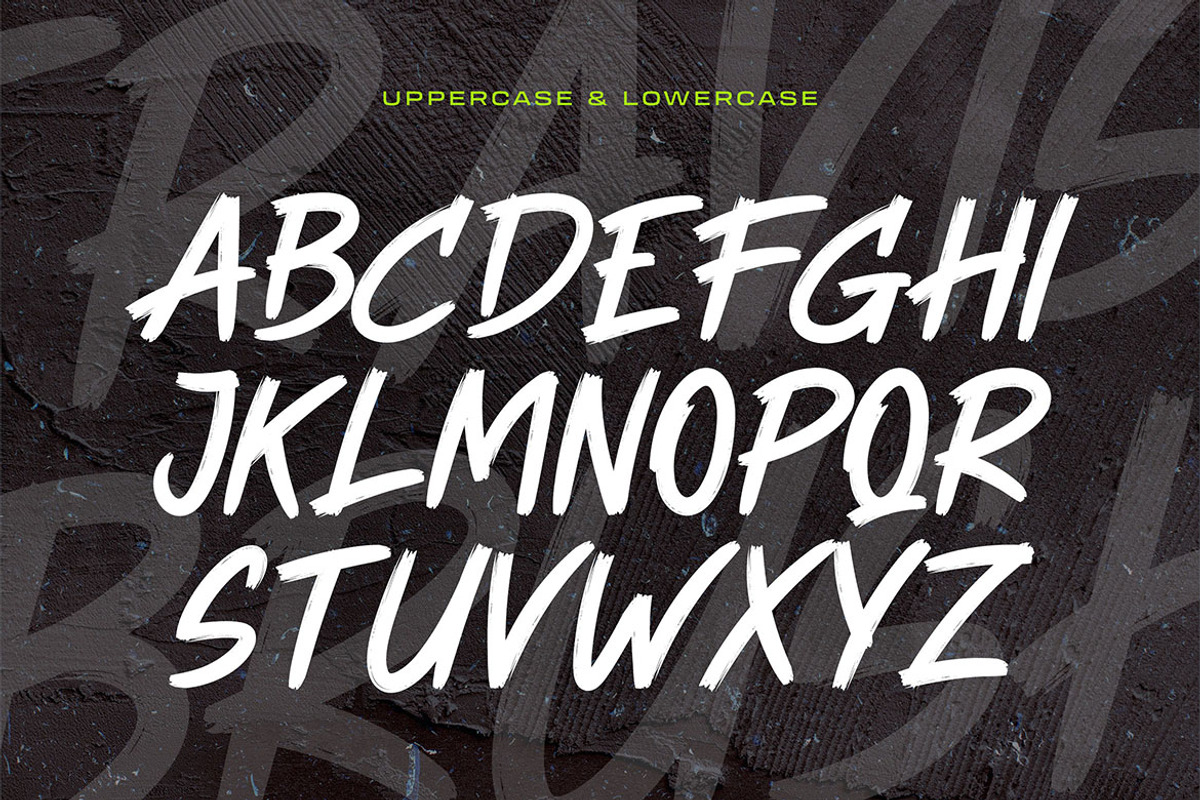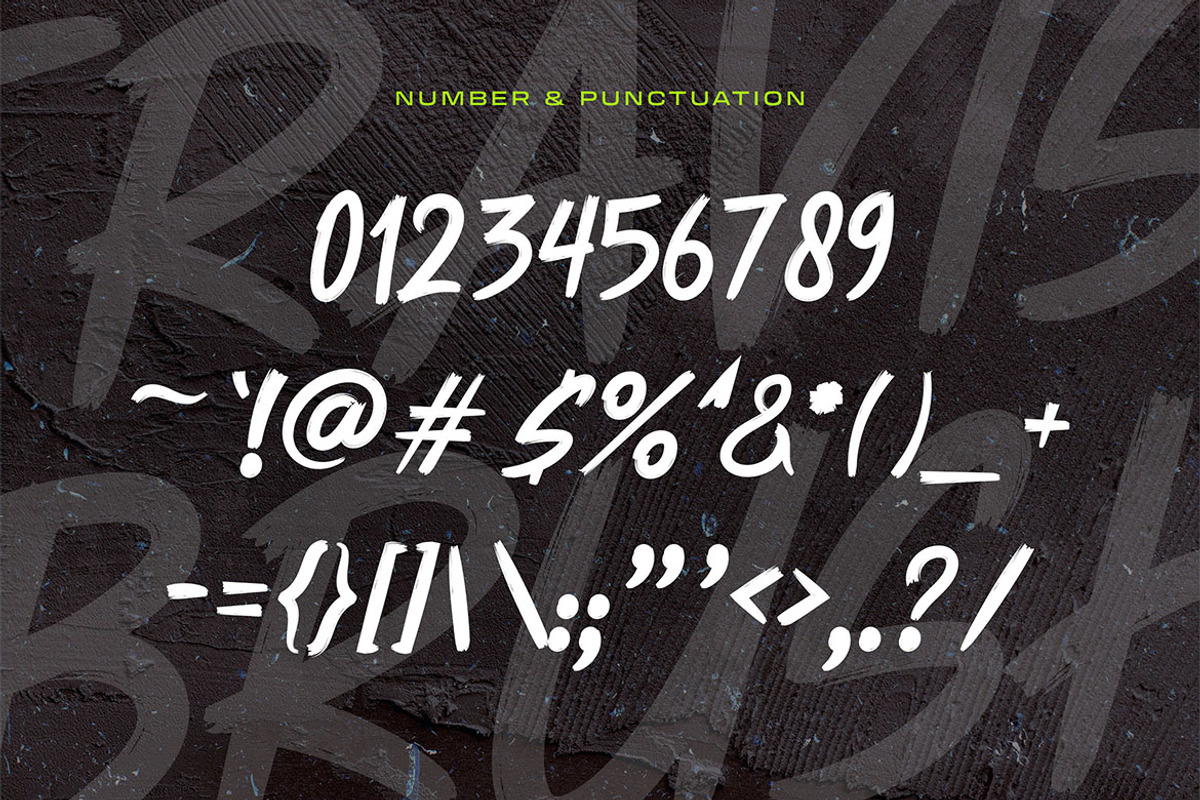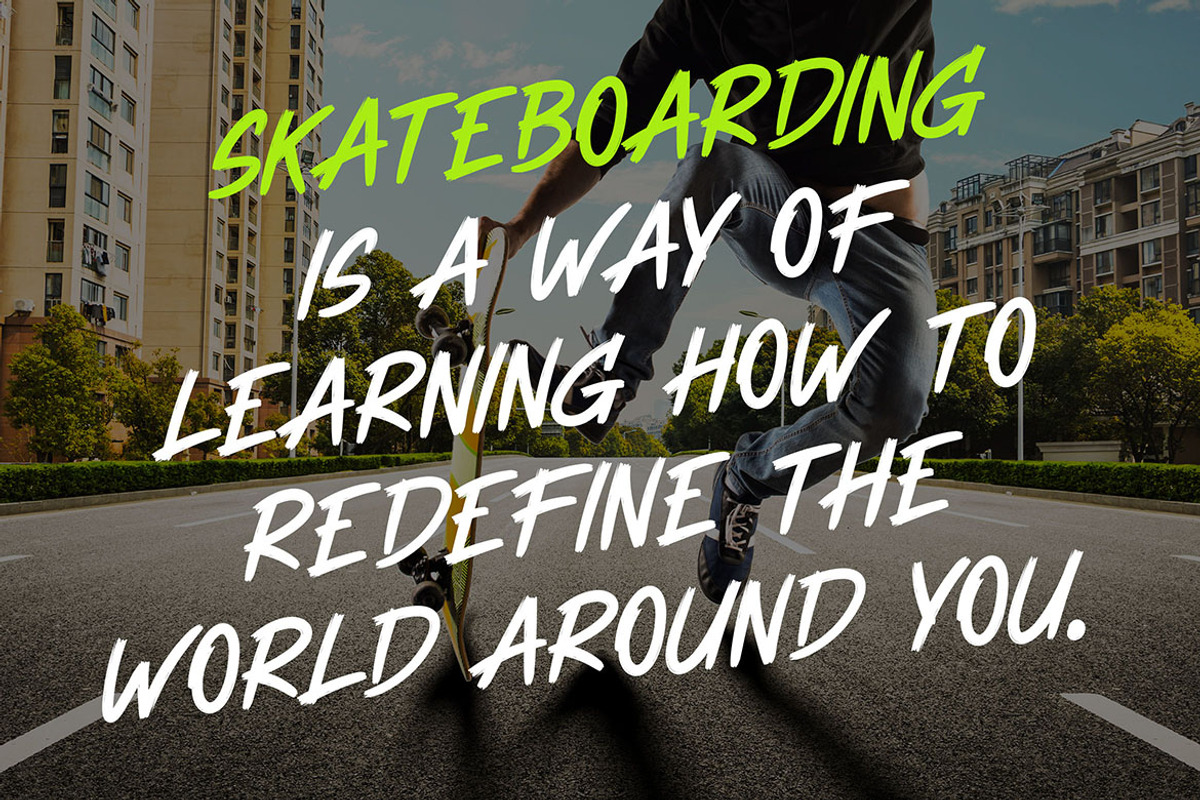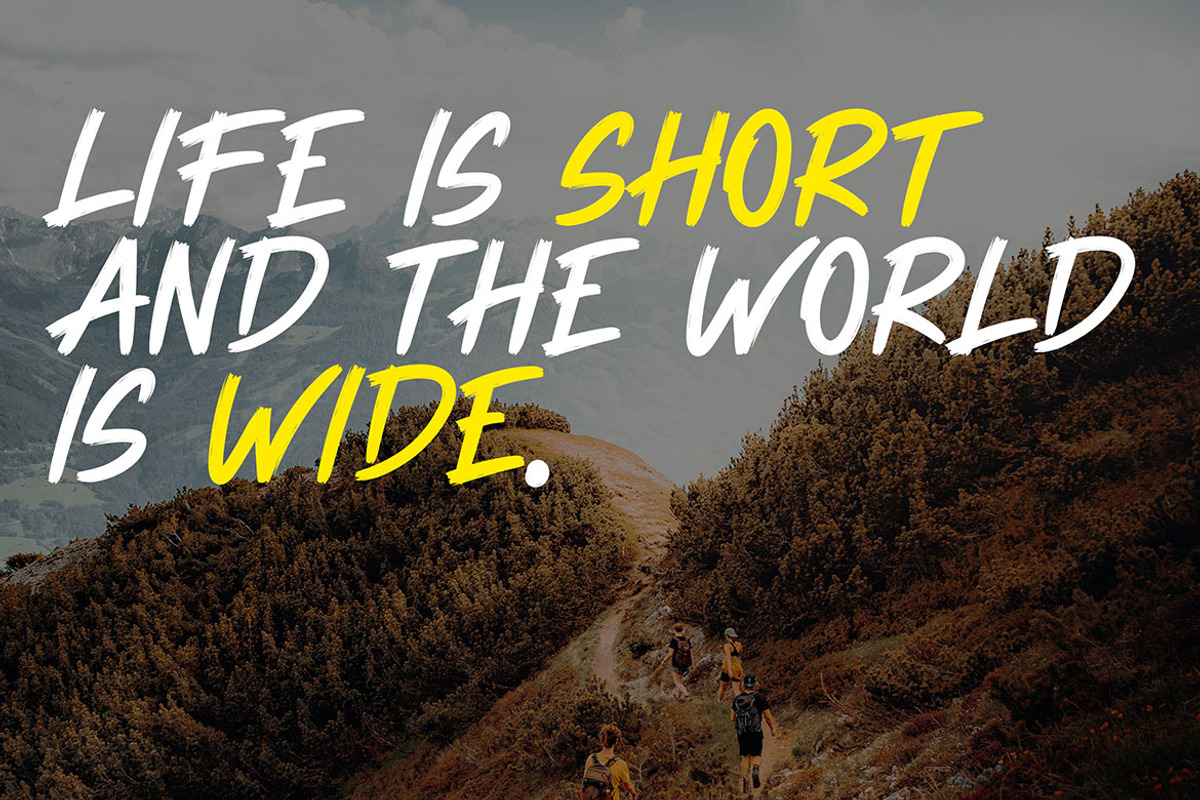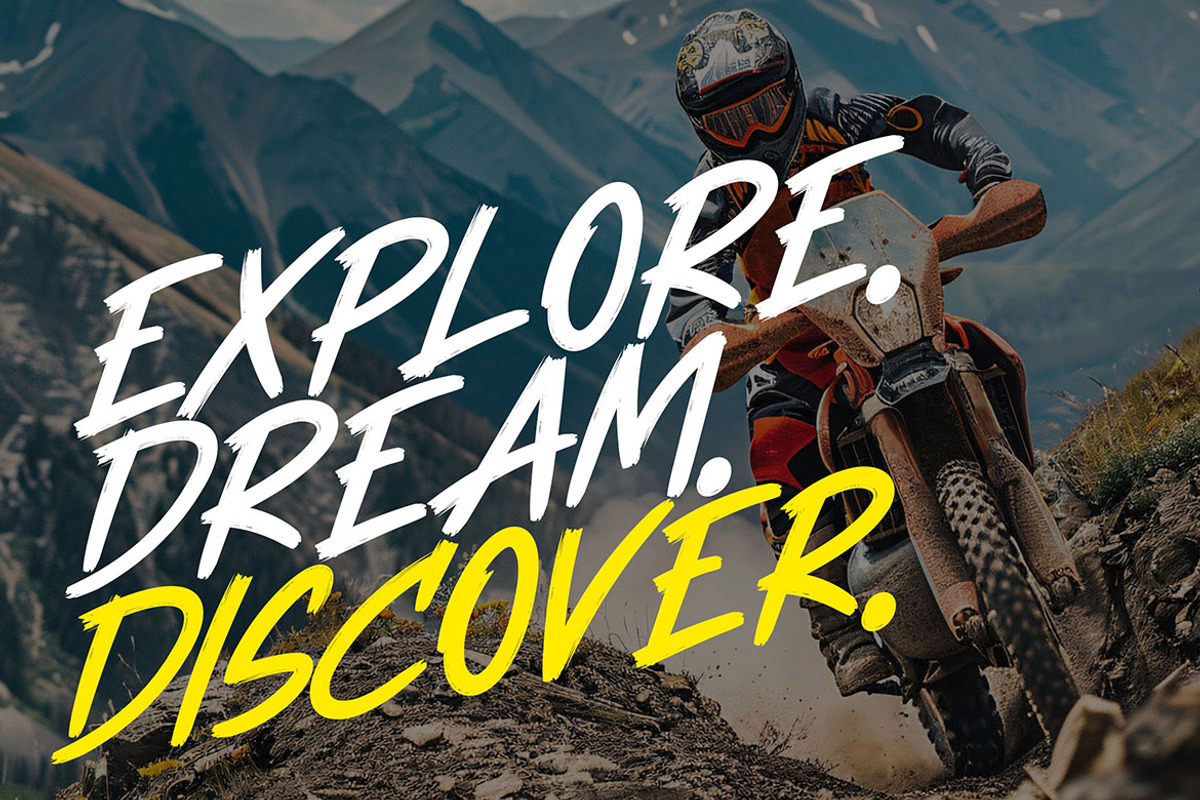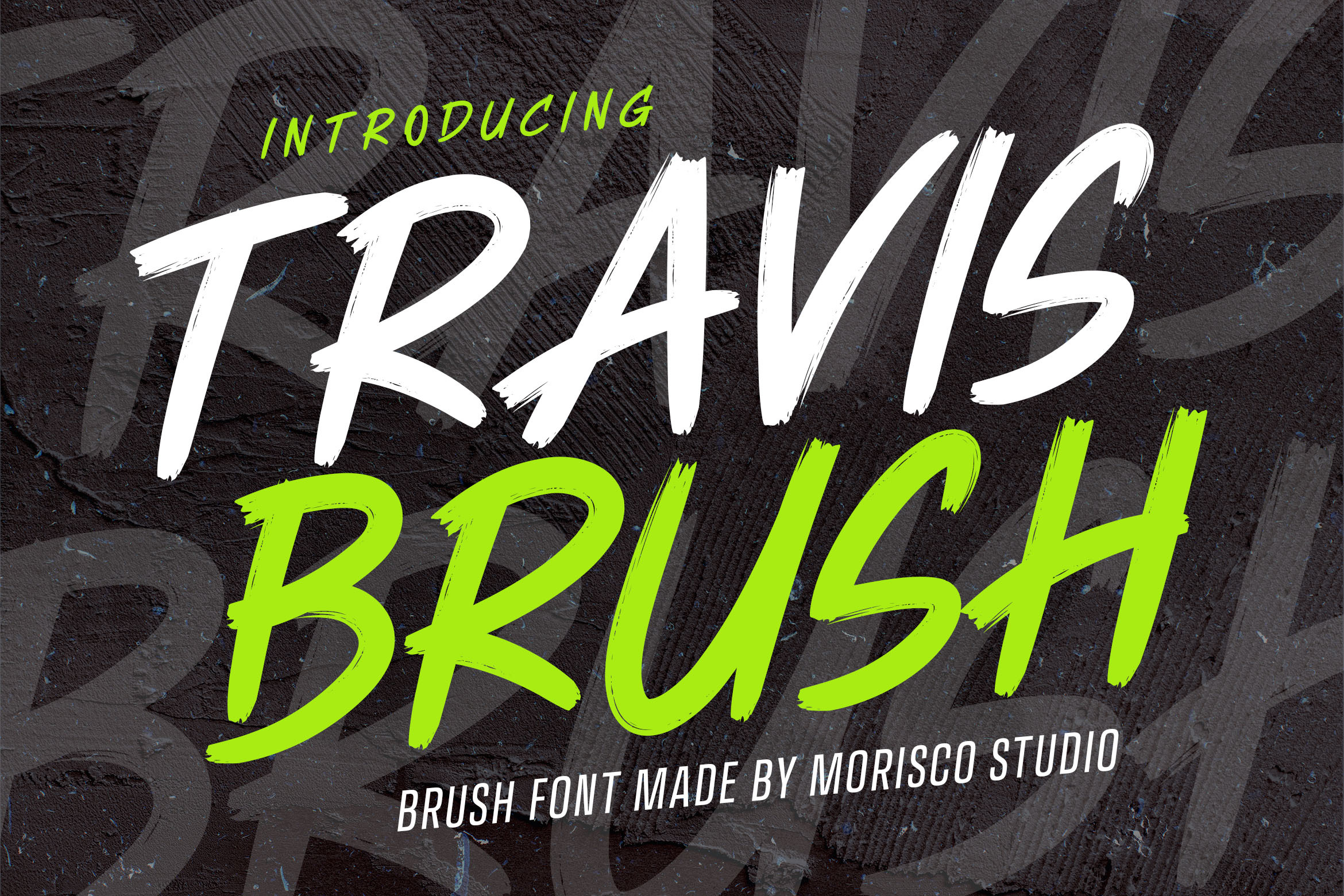
Travis Brush Font
Travis Brush is a Handwritten font with a unique character designed by Morisco Studio. This typeface is well-suited for headlines and any project, like branding, print templates, logos, and more.
* Uppercase & Lowercase
* Symbols & Punctuation